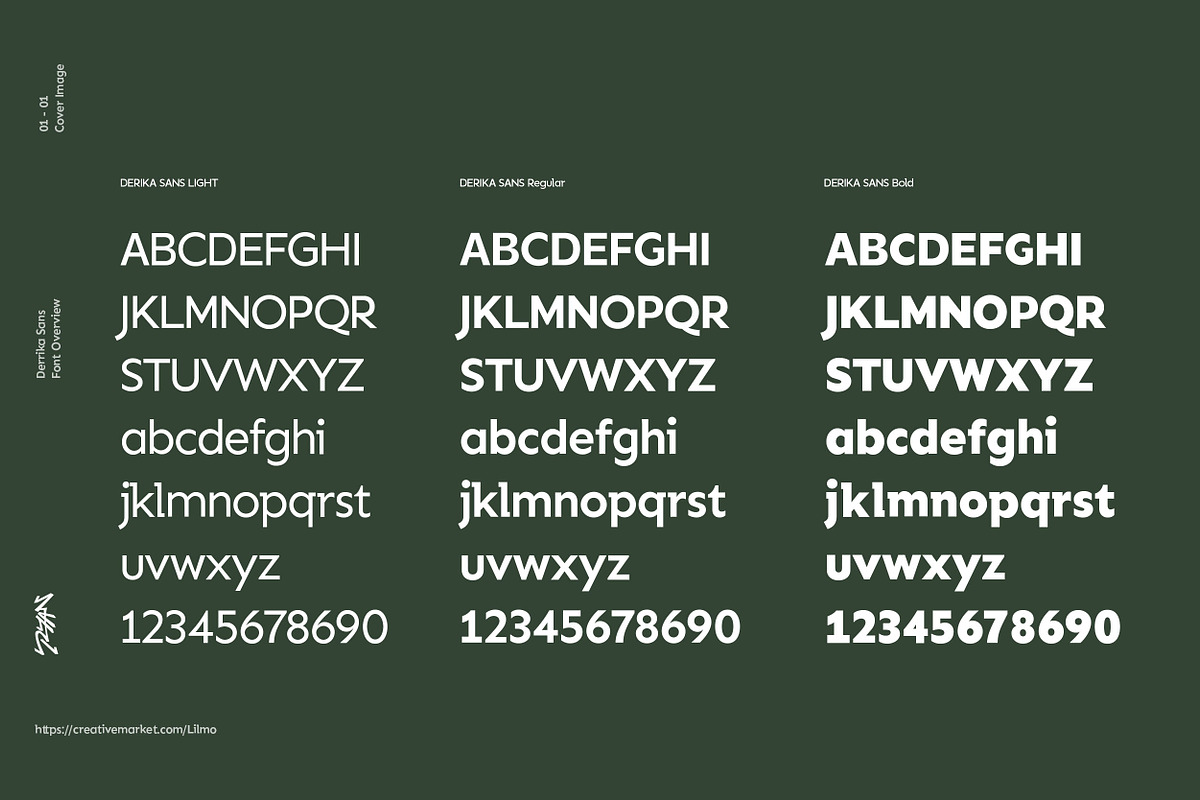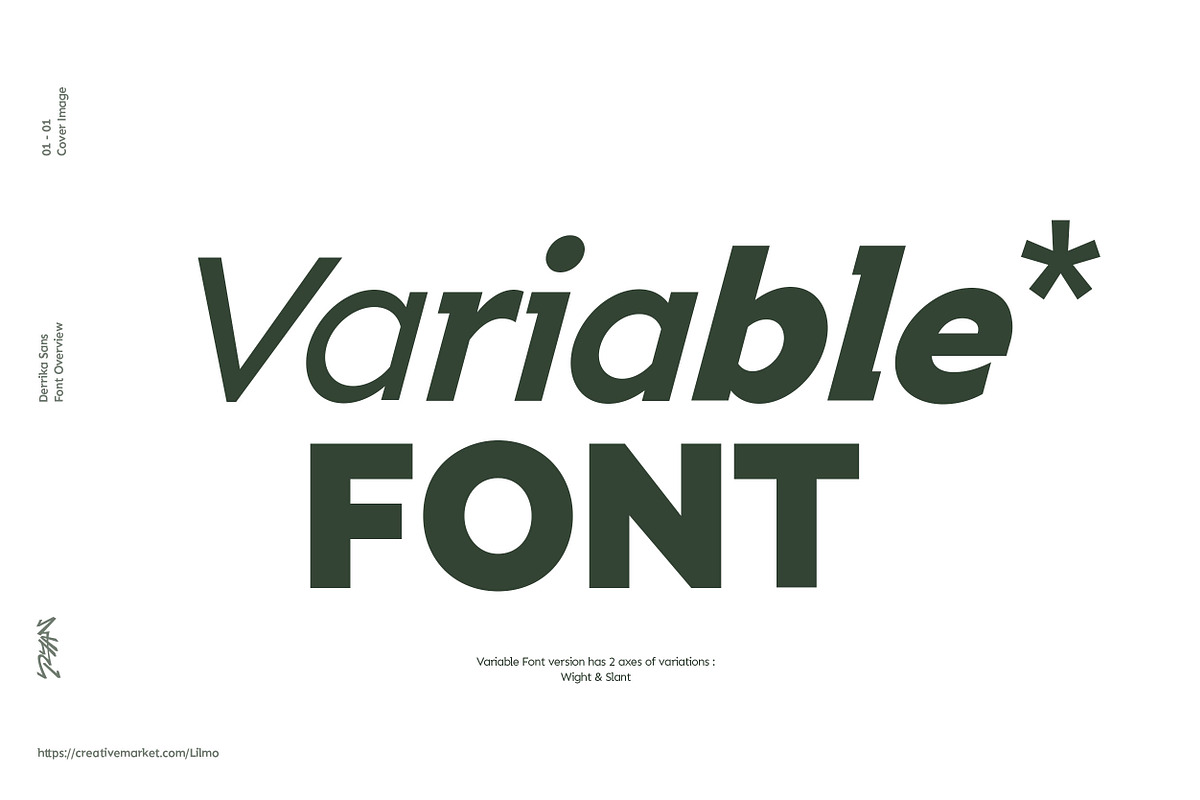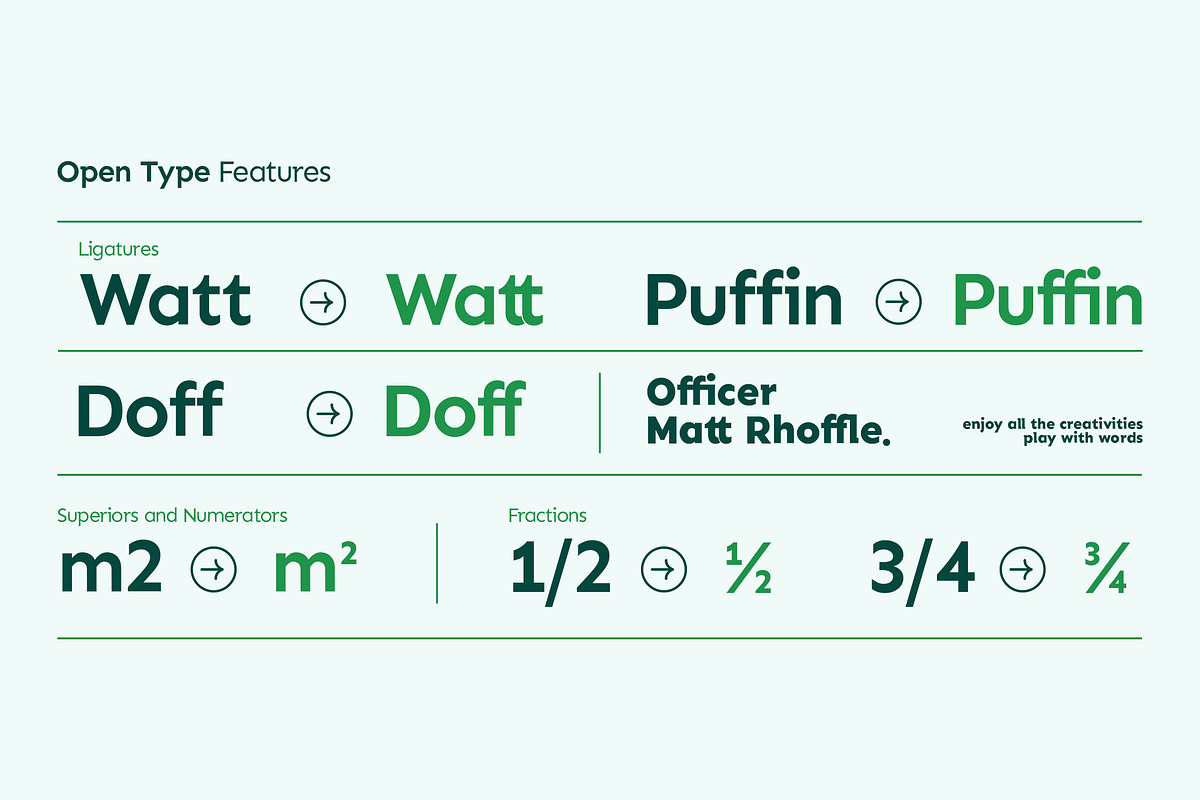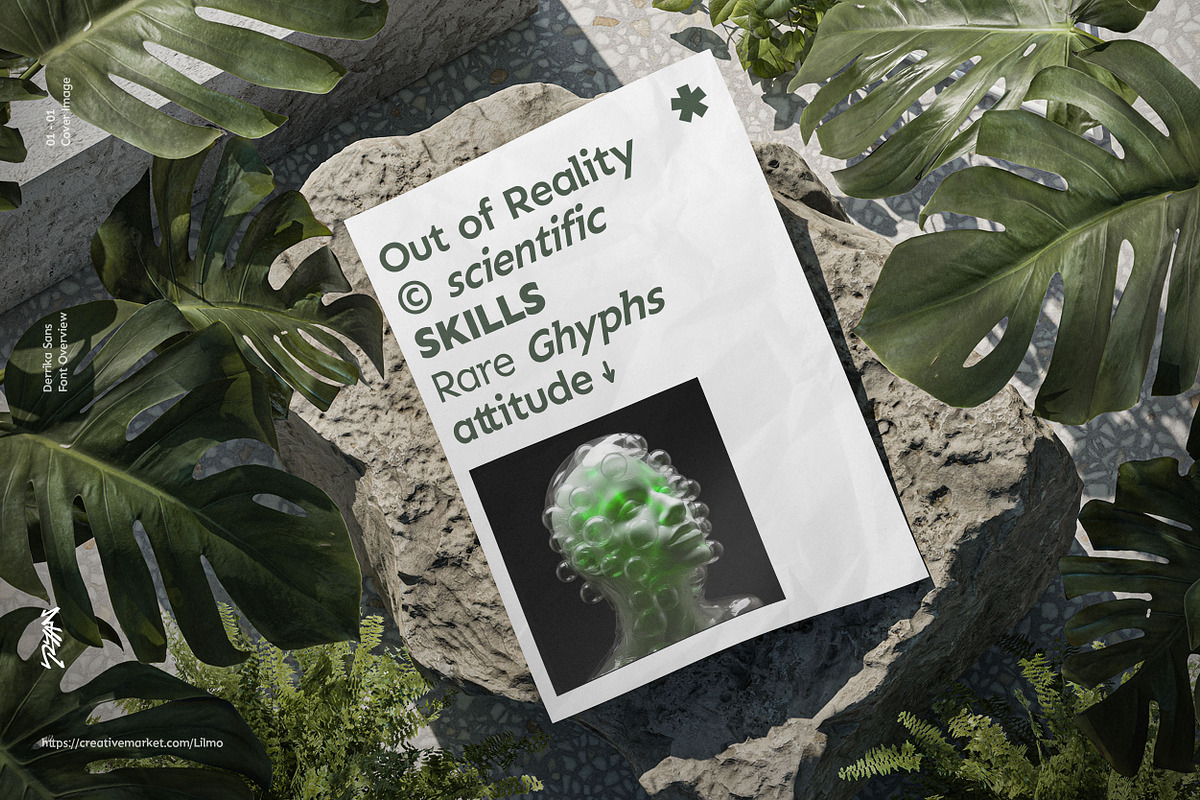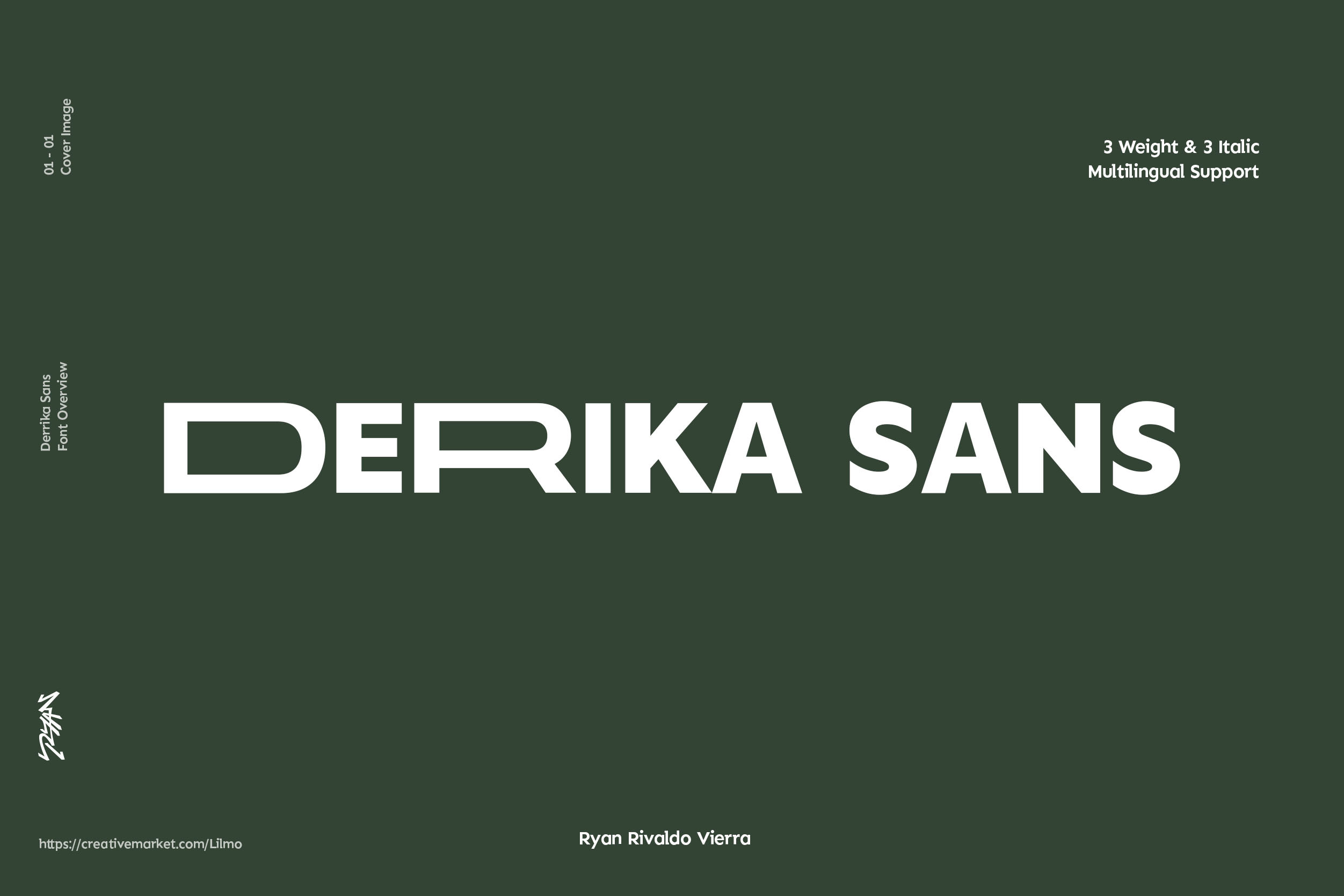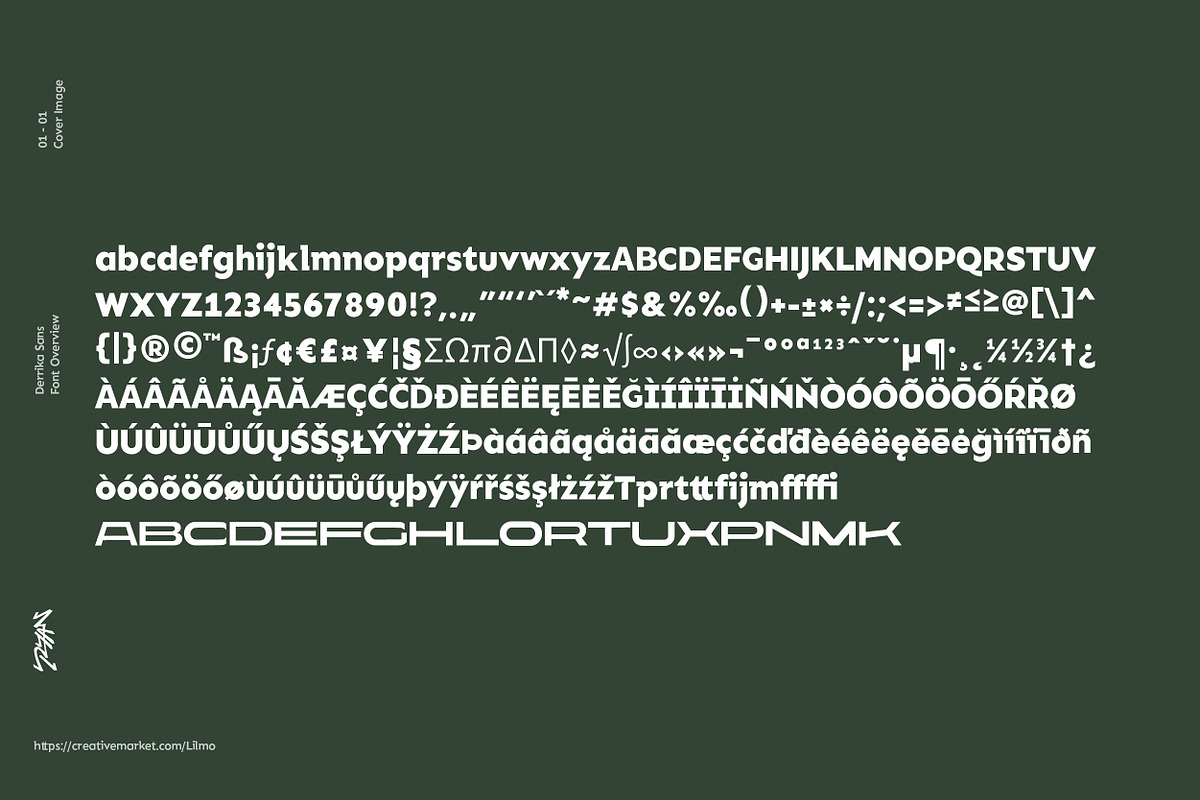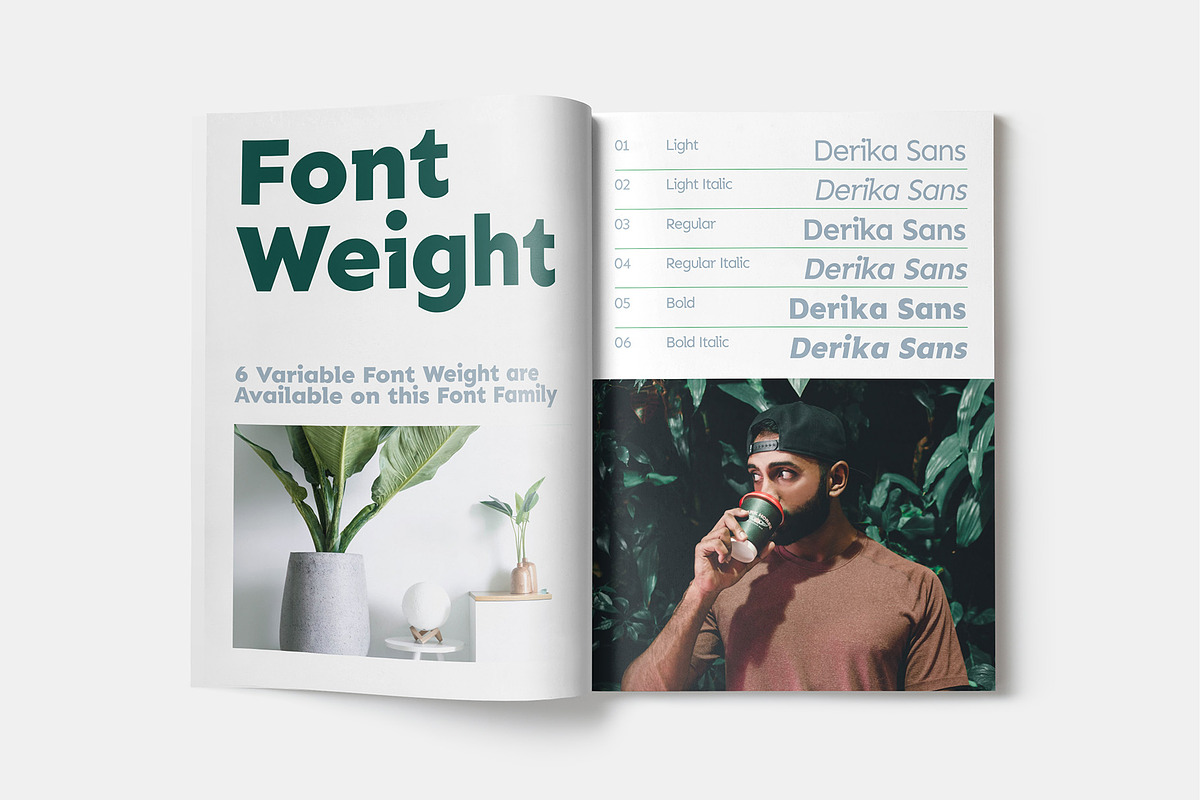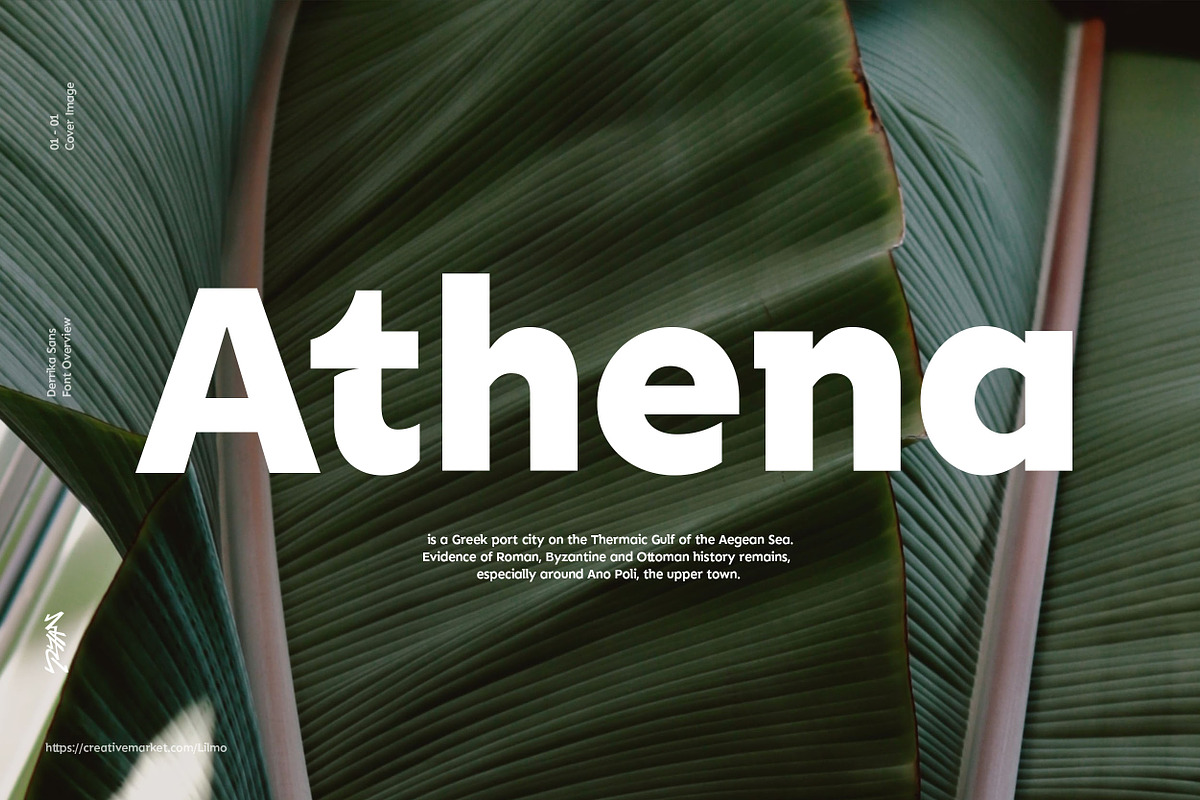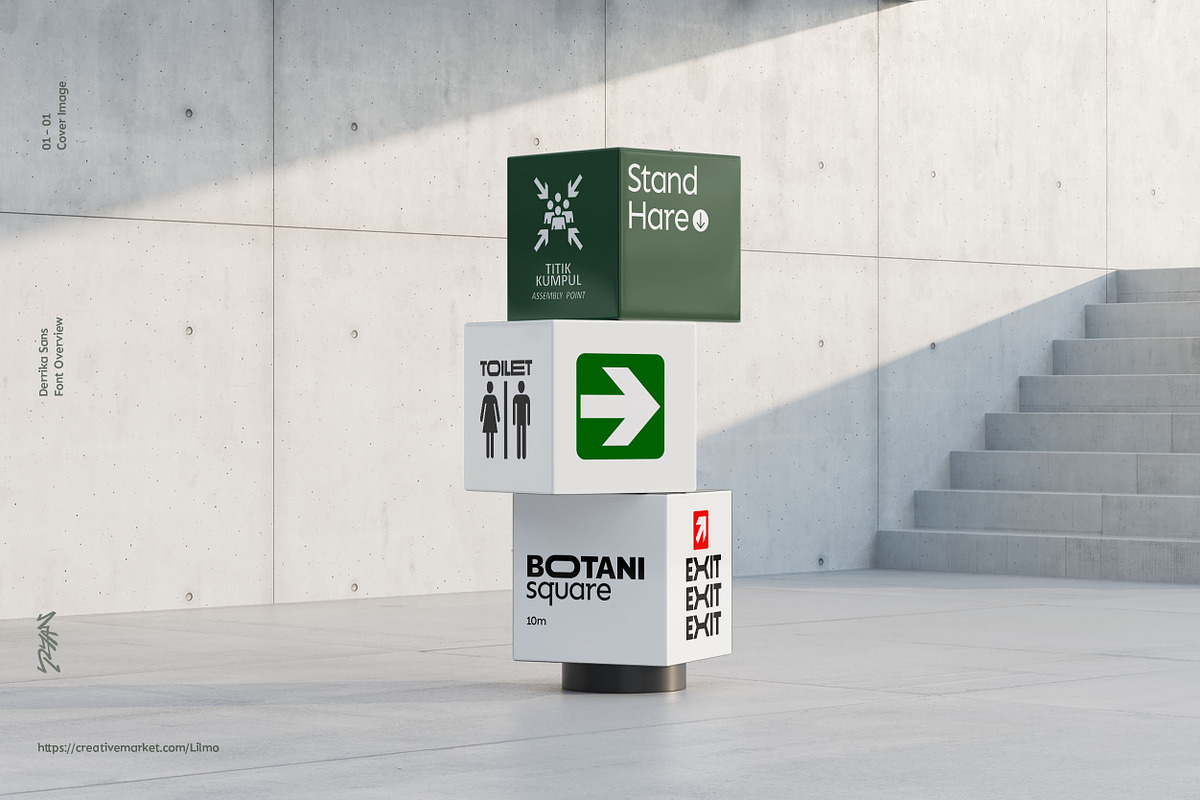
Derika Sans - Sans Serif Font
Derika Sans sans-Serif is a new font by Ryan Rivaldo Vierra. This font offers you a bold look that will be perfect for headline, title, branding, poster, and other eye-catching design
Derika sans make your design like ke pro